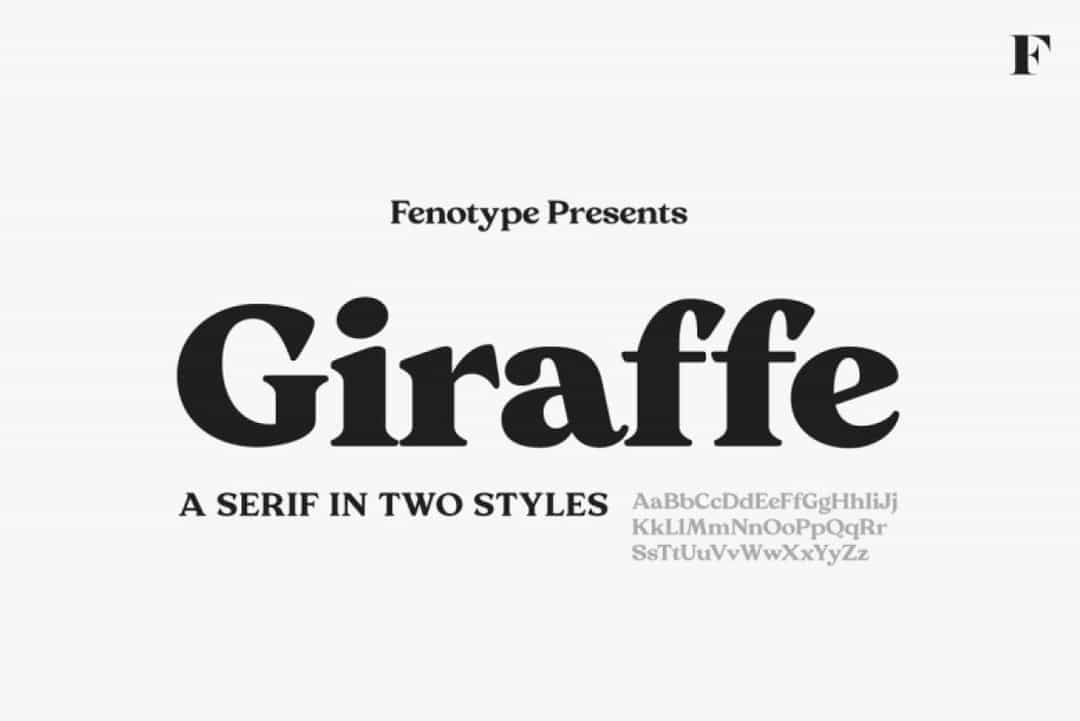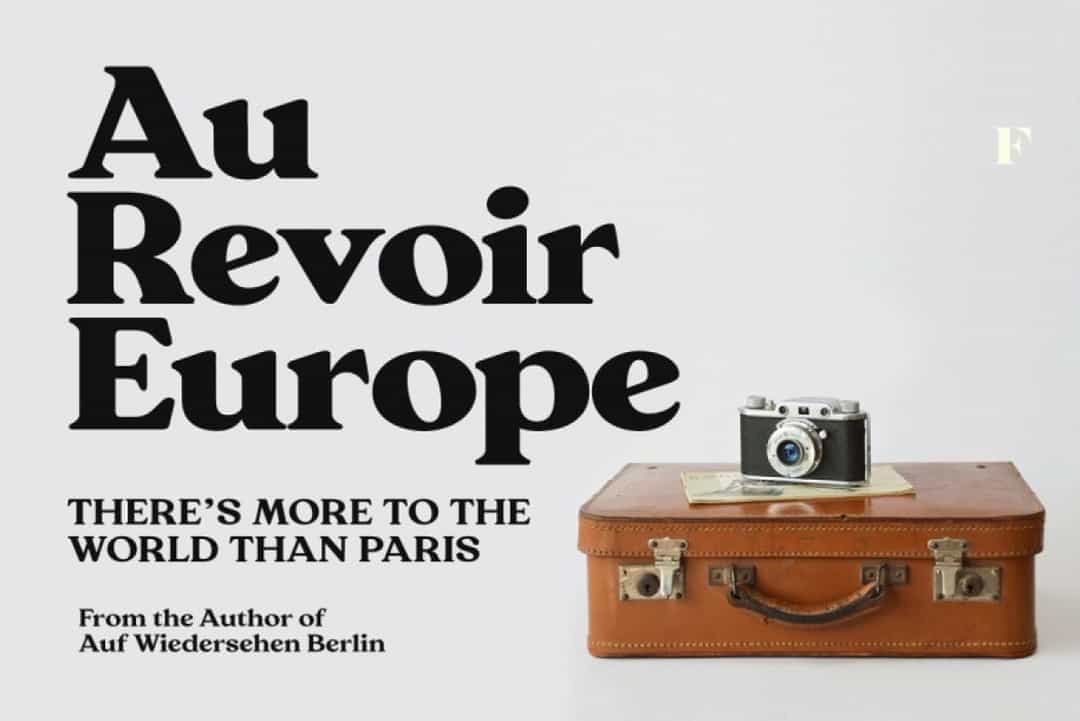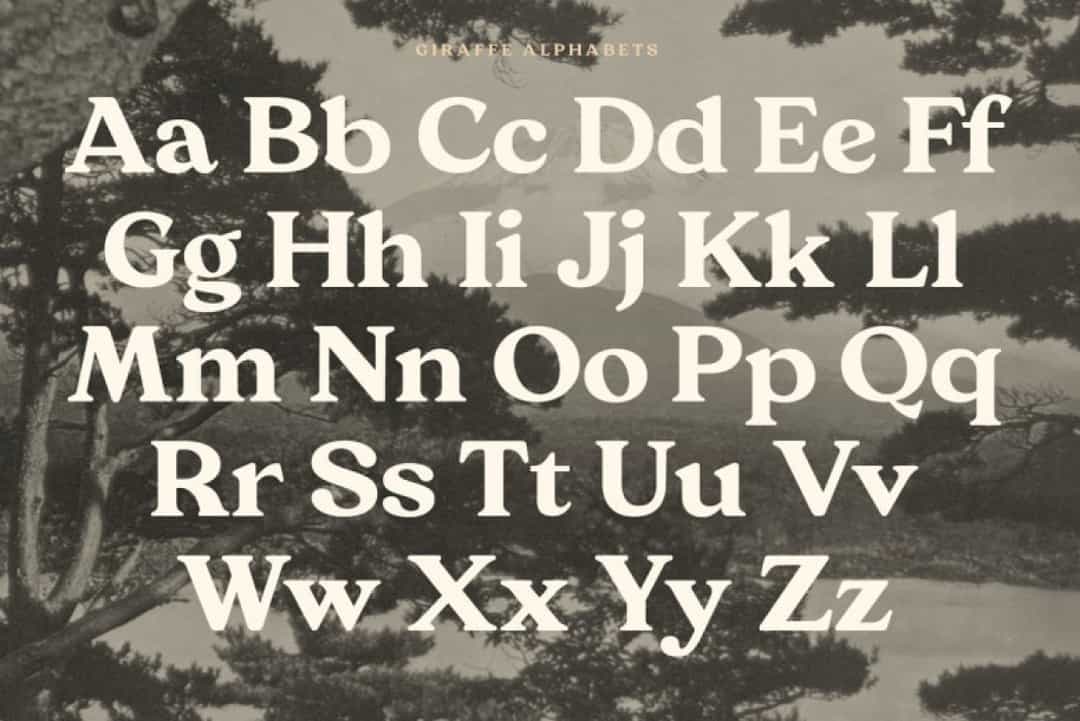
Giraffe is a broad and strong round serif font with two styles, designed for display type with professional appearance in mind. This font takes up plenty of space but makes for great display purposes, ideal for display type purposes with its professional appearance. Giraffe comes with Stylistic Alternatives available for letters C-G-J-R A C F G $ S and C for even further personalization options.